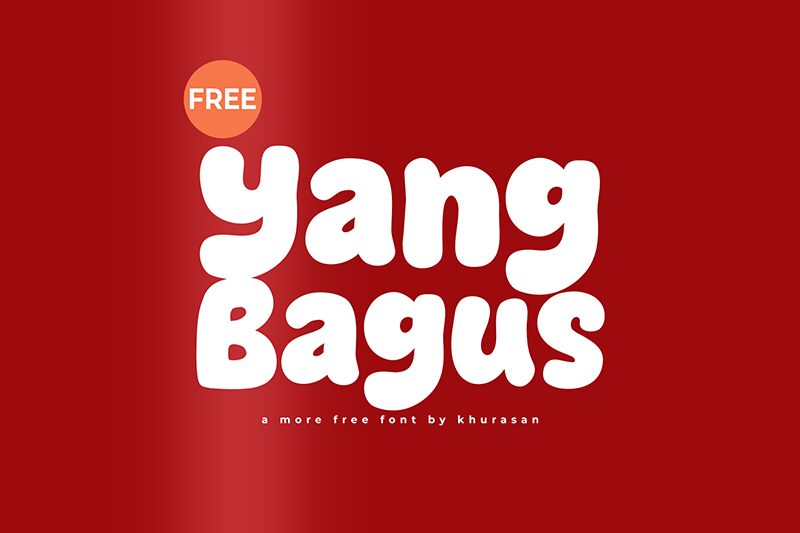
Yang Bagus font is a display bold cartoon typeface designed by Khurasan. A rounded, casual, and playful alphabet makes this font truly special. The style can be described as informal each character of which delivers fun, humor and entertainment. Thanks to all these characteristics and many others not mentioned here, this free display font must definitely go into your collection.
Possible use cases for Yang Bagus include streetwear branding, food packaging design, logos, posters, magazine headlines or covers. Art direction for music albums whether printed or digital would also take advantage of it. The same goes for animated movie titles which are yet another possible application.